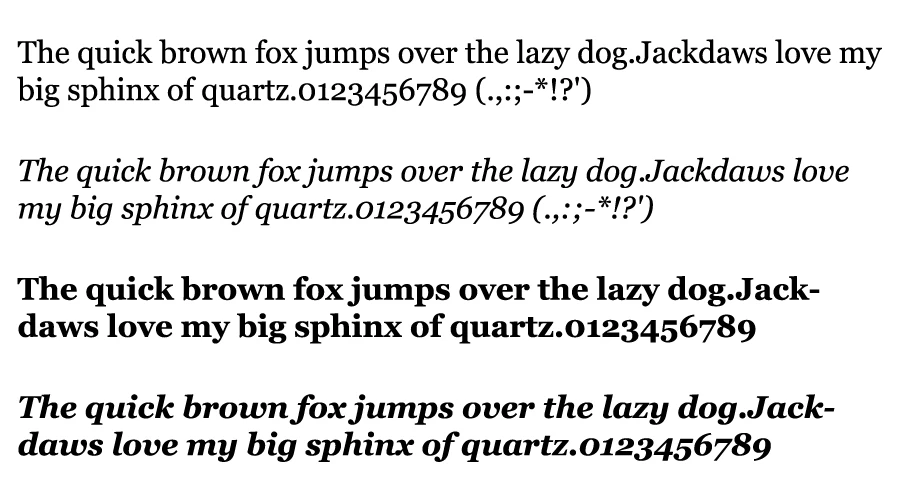
Georgia is a serif typeface font. Matthew Carter and Tom Rickner designed this font in 1993. They designed this for Microsoft corporation. In 1st November 1996, Microsoft publically released the font (initial version). The new version of Georgia released in 2013 along with its sister sans-serif font Verdana.
With 119 characters and 4 styles, Georgia font is very much attractive and versatile. This font is visible even at very low resolutions and is very easy to understand. Georgia typeface is similar to Times New Roman. However, as the design of the screen display, it has a larger X-height and less subtle details.
This font has won many awards, In 1999 this font won an award at Kyrillitsa. As part of designing Georgia Font, Matthew Carter avowed the Lifetime Achievement Award on May 2, 2011, from the Cooper-White National Design Museum in Smithsonian.
It is perfect for all kinds of designing. You can use this font for branding projects, magazine headers, product packaging or text overlay to any background image. The New York Times has been using the Georgia font instead of the Times New Gothic since 2007.
This font is also very effective in designing logos, banners, brochures, poster, presentations and many more. Georgia is also perfect for official purposes like documents and printing.
Georgia Font View
| Name | Georgia Font |
| Style | Serif |
| Author | Matthew Carter and Tom Rickner |
What type of font is Georgia?
Ans: Georgia is a serif typeface font designed by Matthew Carter.
Is there any font similar to Georgia in Google Fonts?
Ans: Merriweather is mostly similar to Georgia in Google fonts.